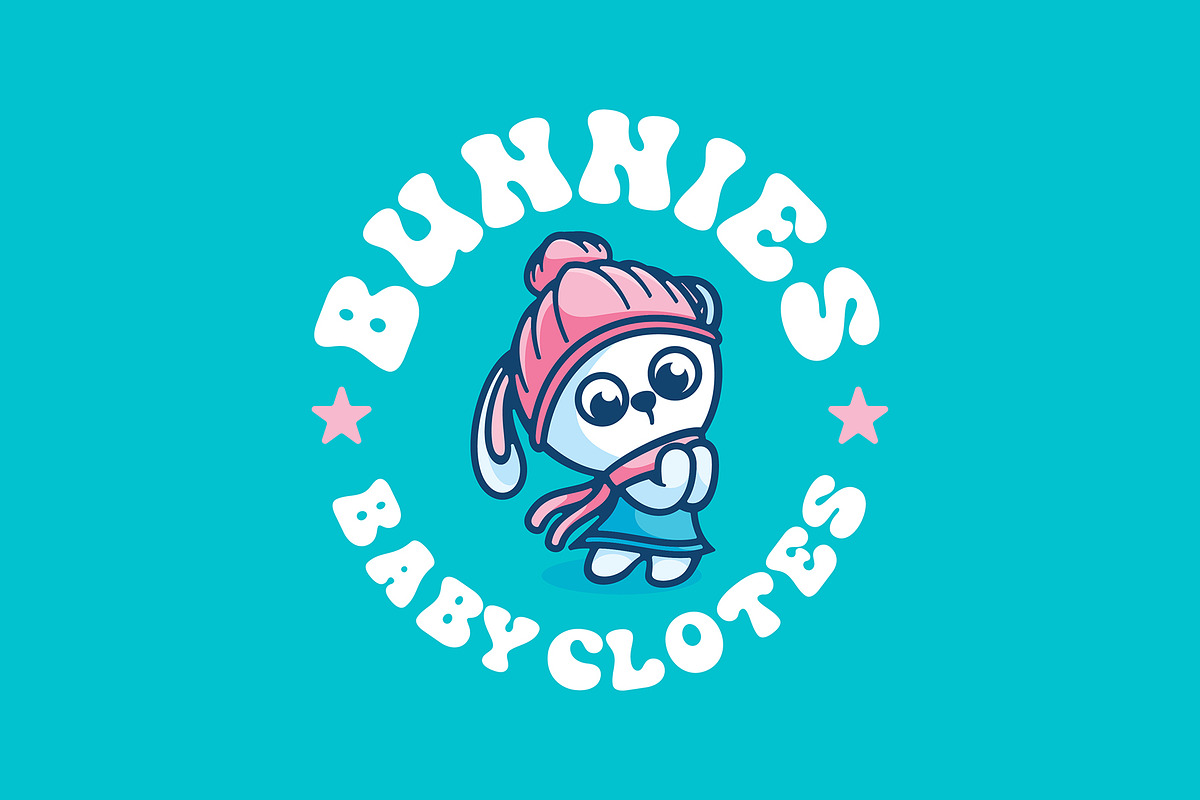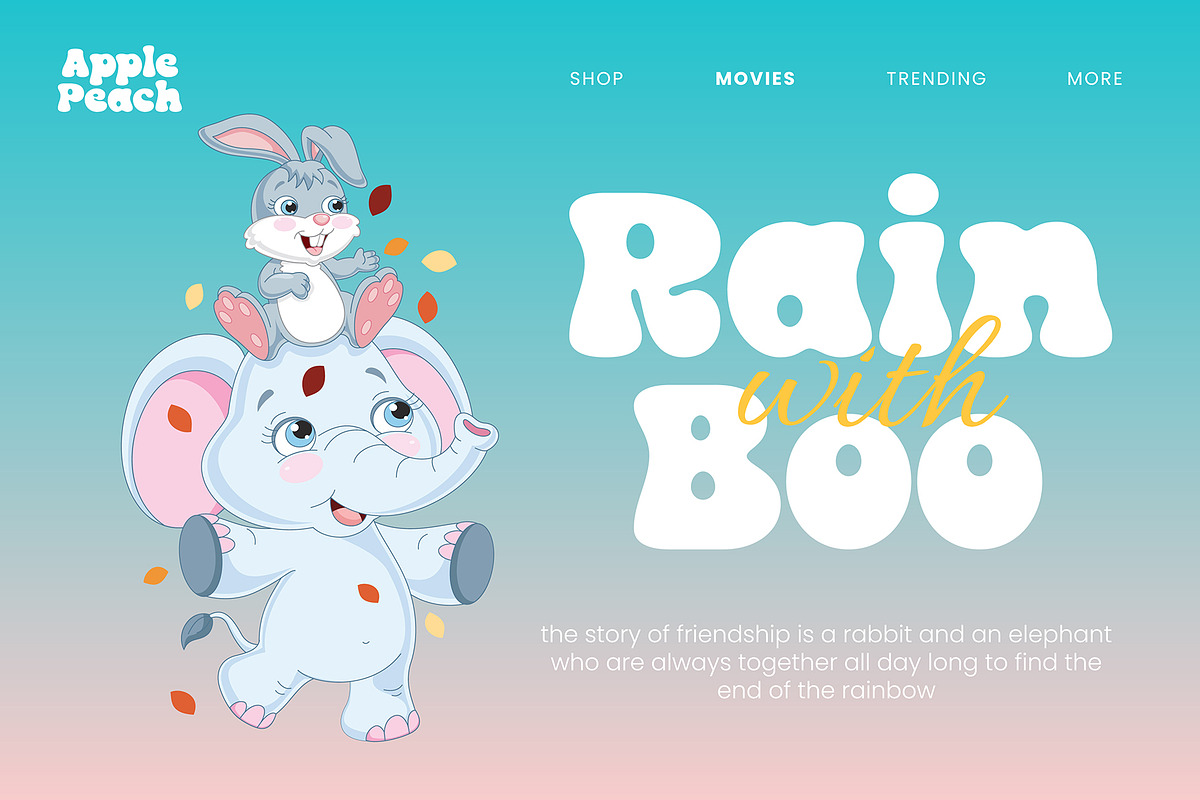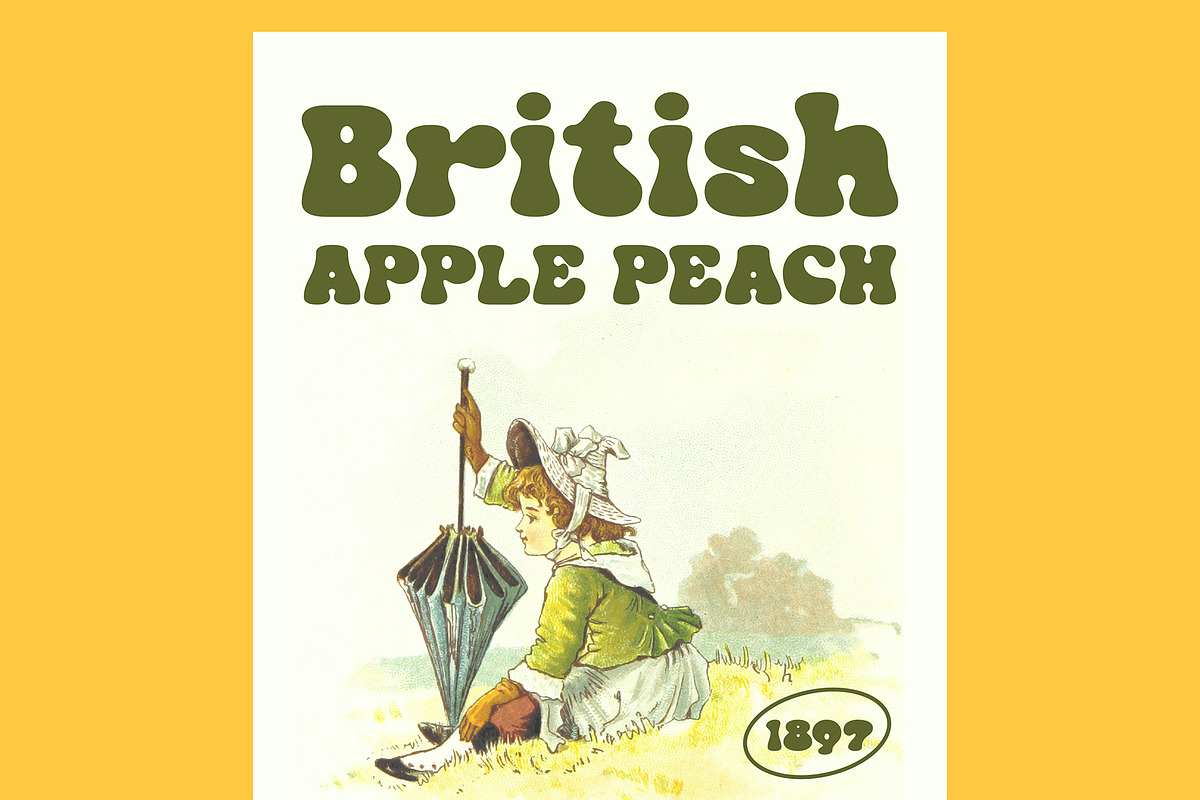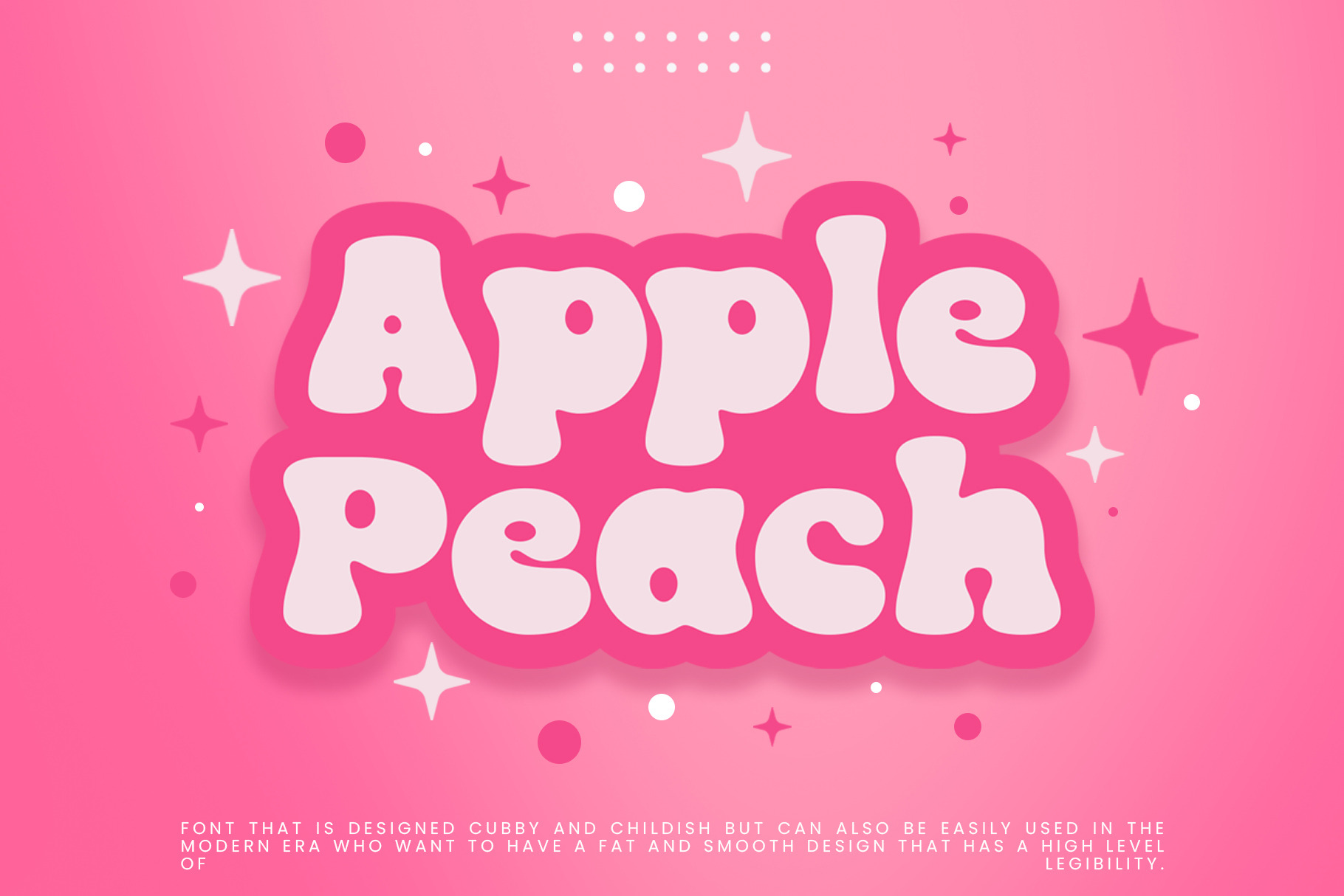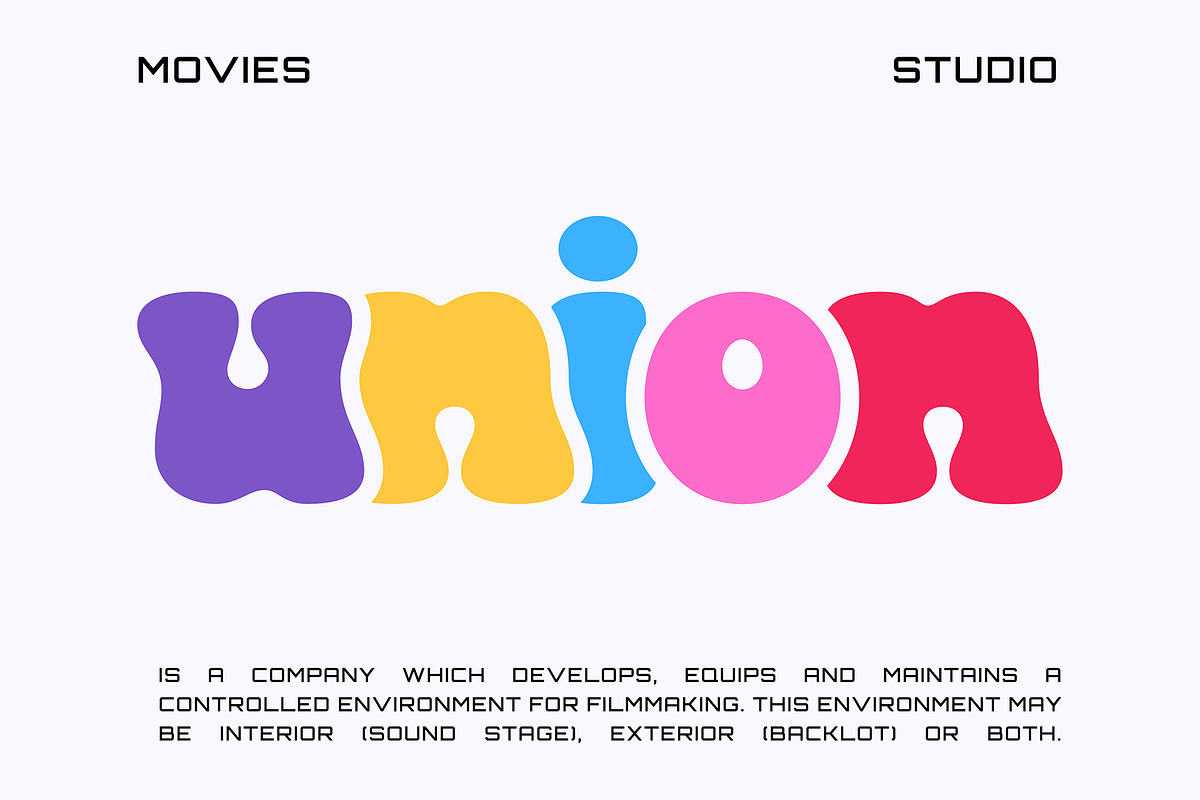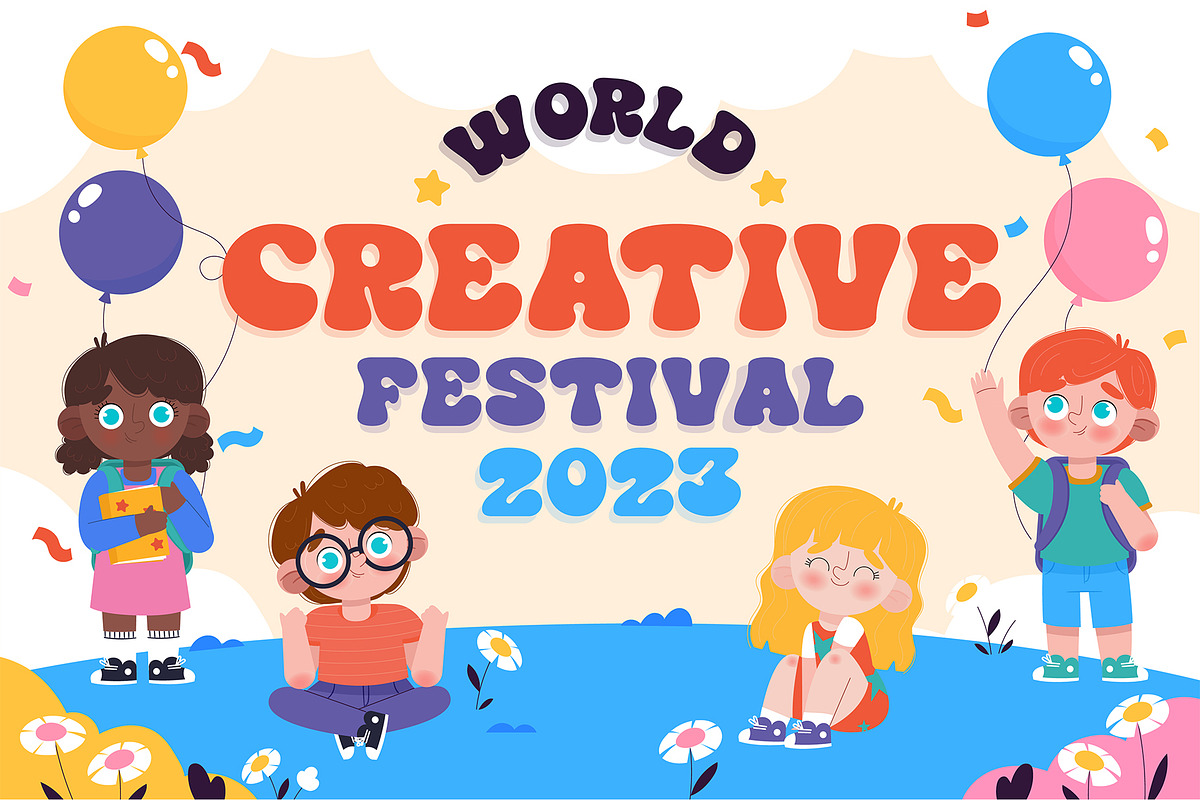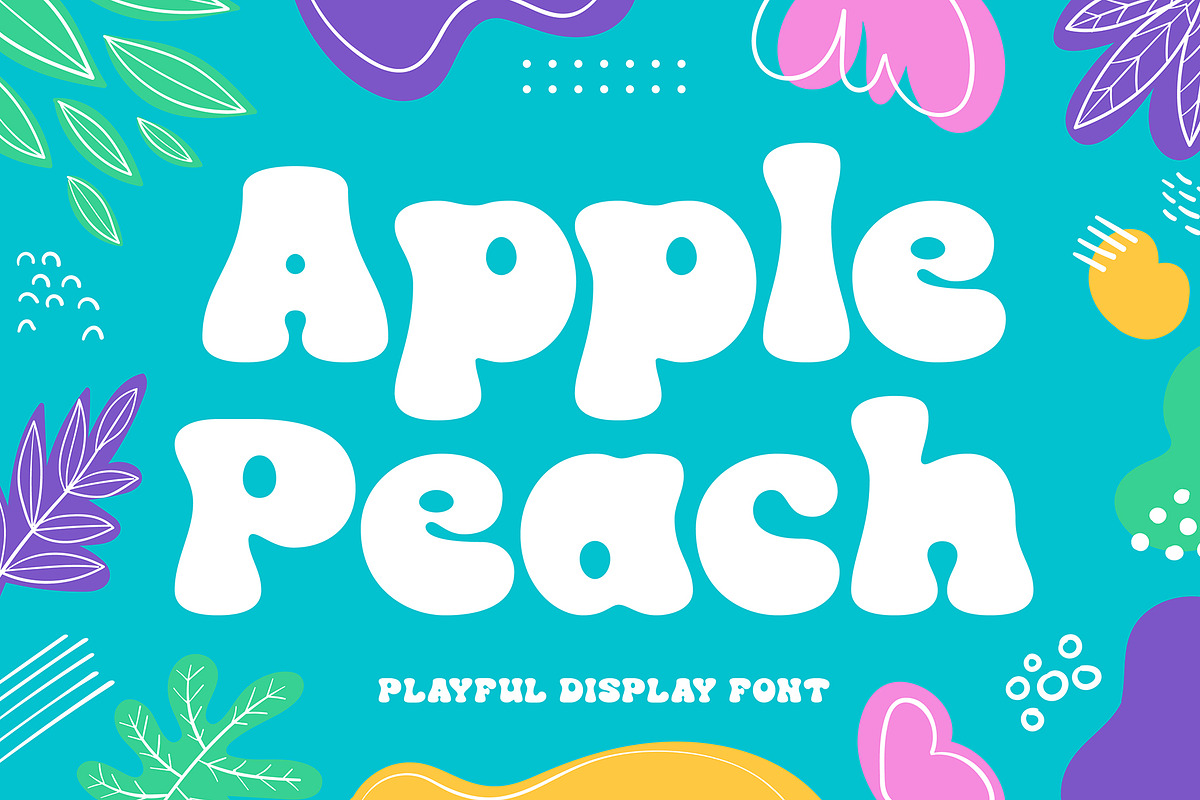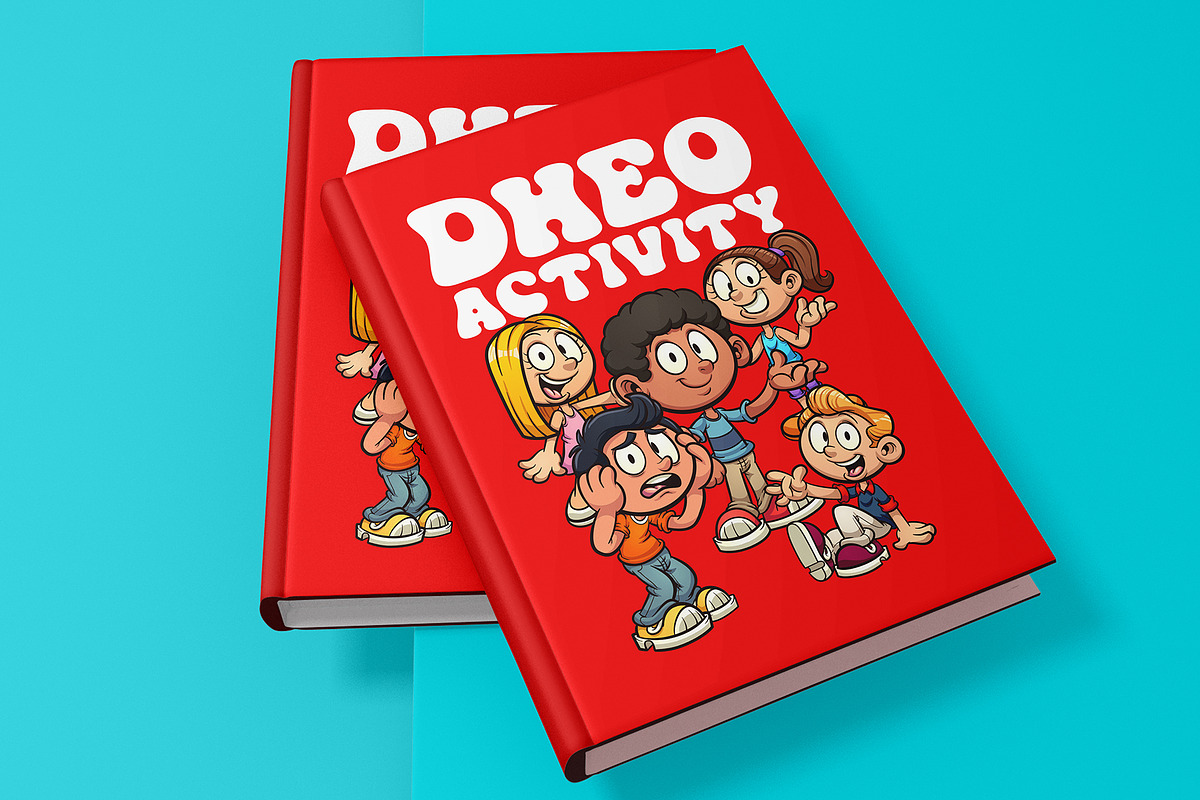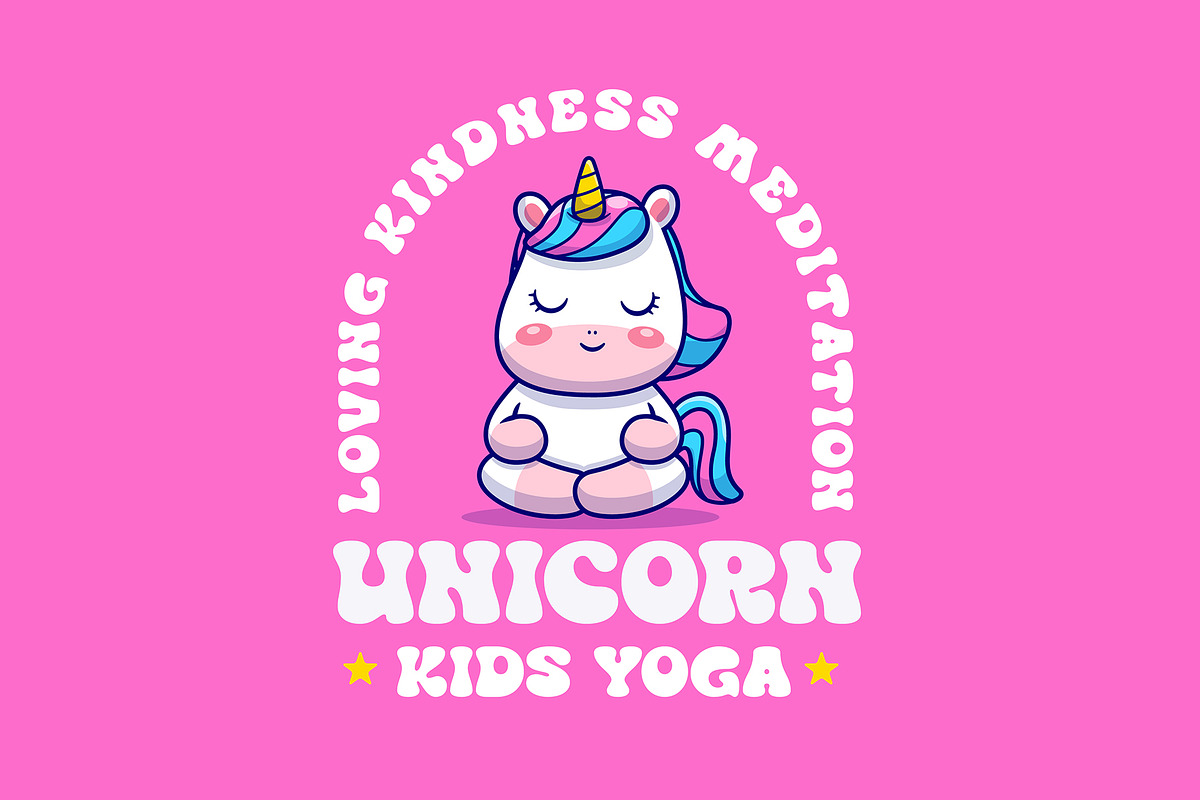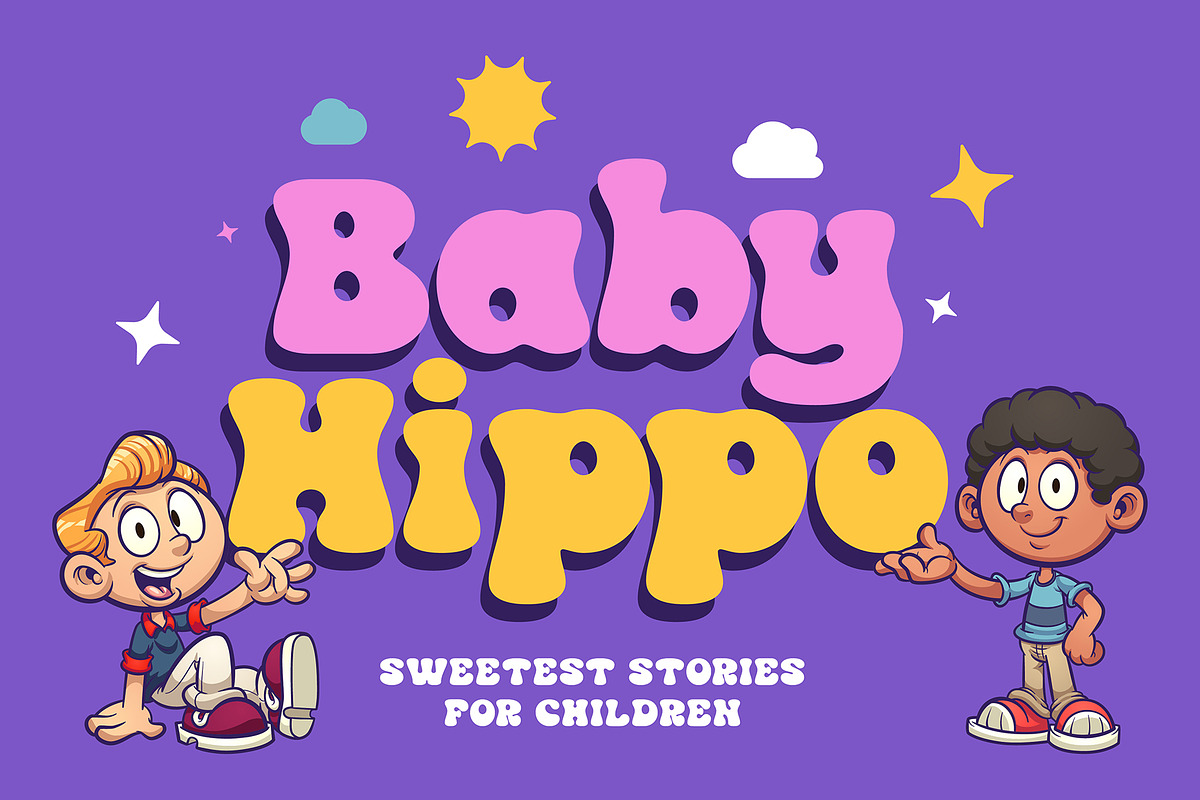
Apple Peach | Playful bubble Font
Apple Peach is a font that is designed cubby and childish but can also be easily used in the modern era who want to have a fat and smooth design that has a high level of legibility. The advantage of this font is that it can be used for various product designs according to your needs.